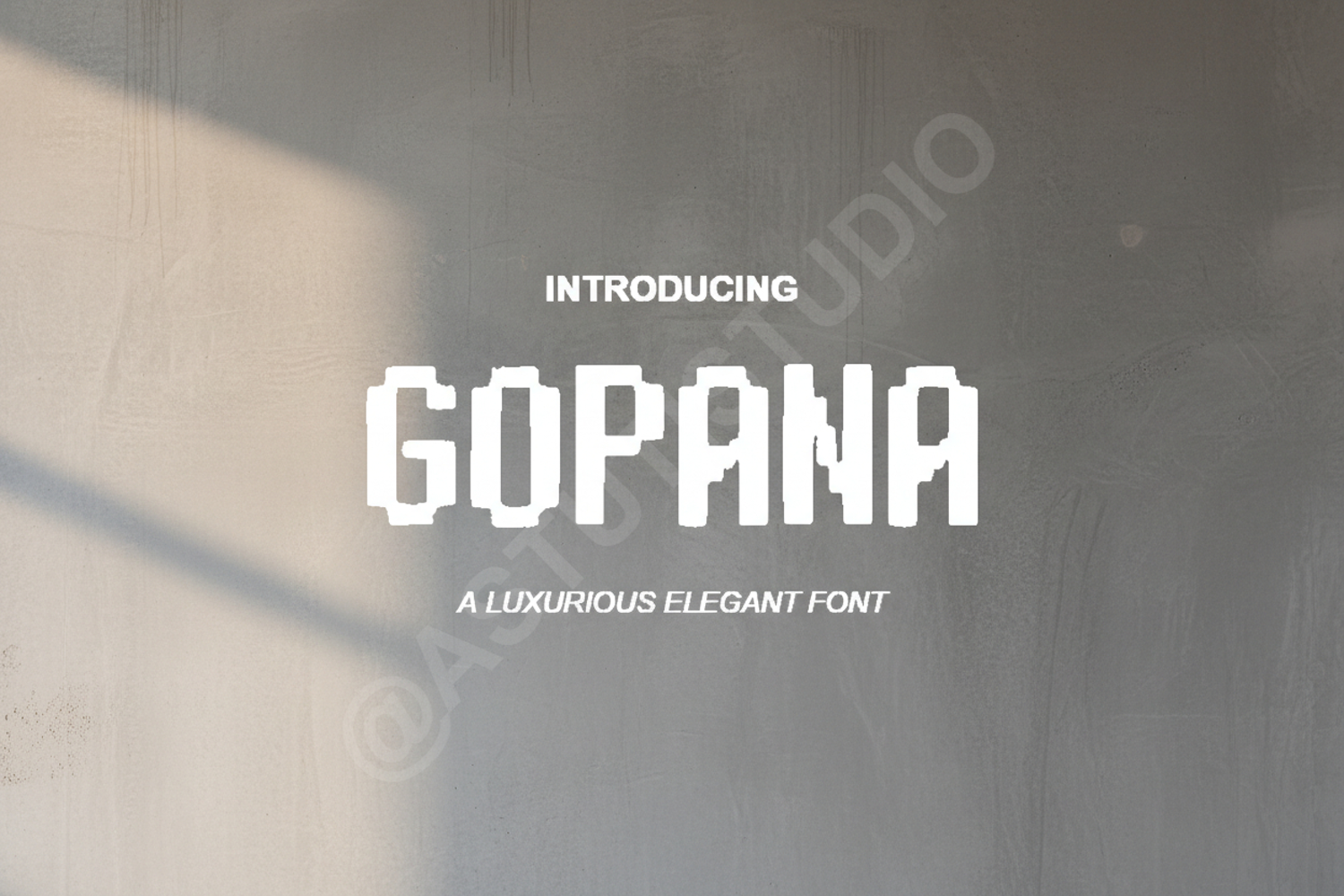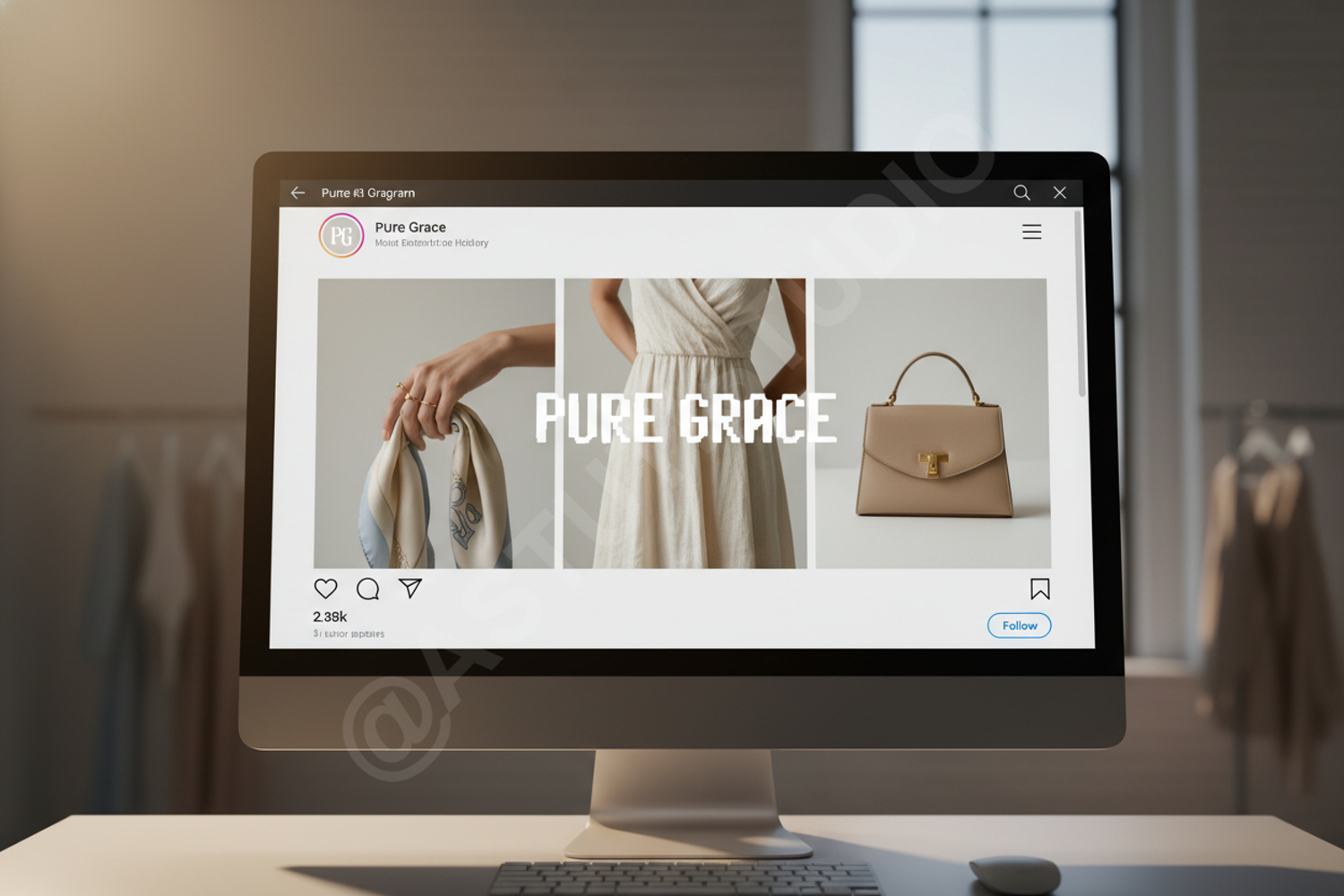
Gopana - Elegant Modern Serif Typeface
Gopana
Gopana is a premium serif font that exudes sophistication and timeless elegance. Carefully crafted with clean lines and balanced proportions, this typeface is perfect for designers looking to add a touch of luxury to their work. Whether you are working on a minimalist brand identity or a high-fashion editorial, Gopana provides the versatility and professional polish needed to make your text stand out.
- Full set of uppercase and lowercase letters
- Stylistic alternates and ligatures
- Extensive multilingual support for global accessibility
- Branding and Identity: Create memorable logos and distinctive brand marks.
- Wedding Stationery: Design sophisticated invitations, menus, and place cards.
- Editorial Design: Perfect for magazine headers, book covers, and body text.
- Social Media: Elevate your digital presence with high-end aesthetic posts.
- Product Packaging: Add a premium feel to luxury goods, cosmetics, and lifestyle products.